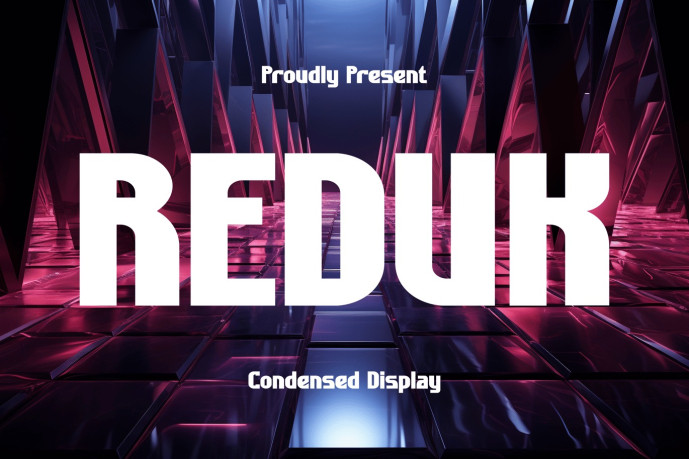
Reduk – Condensed Display Font
Designer: maxhendra27
Reduk is a super thick typeface with more traditional letter shapes, making it perfect for creating (or recreating) the concise look of film poster production credits.